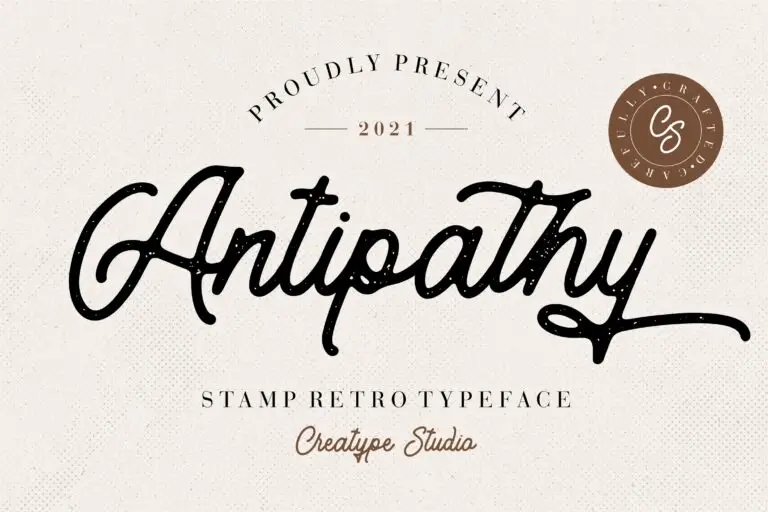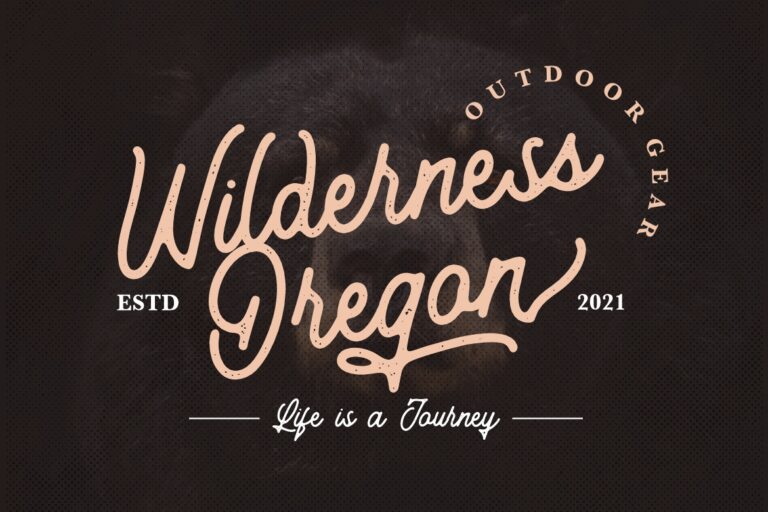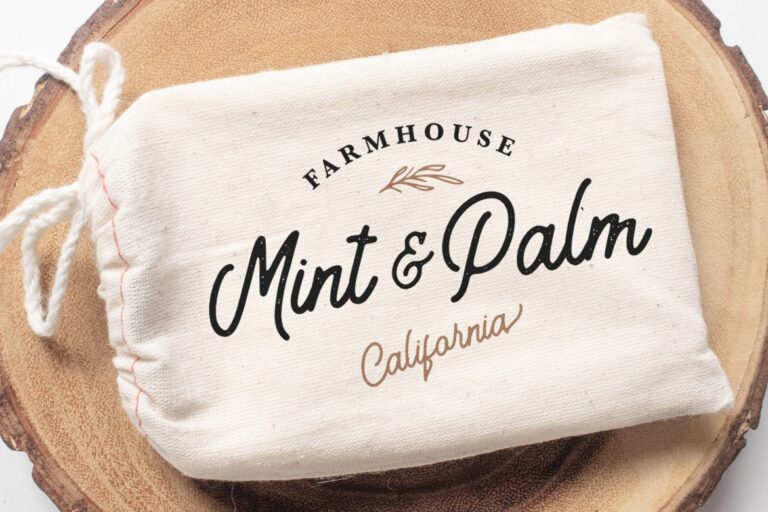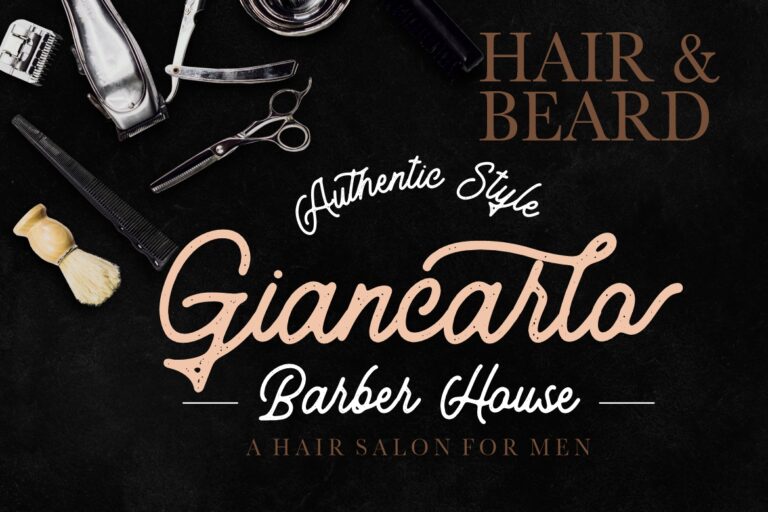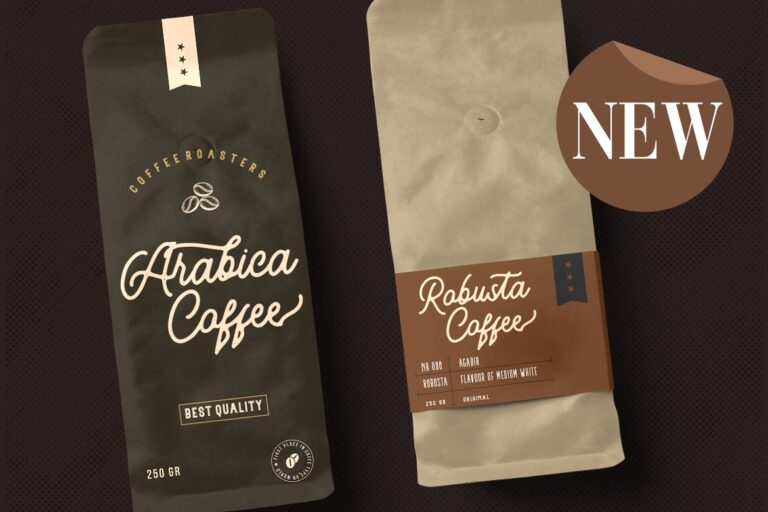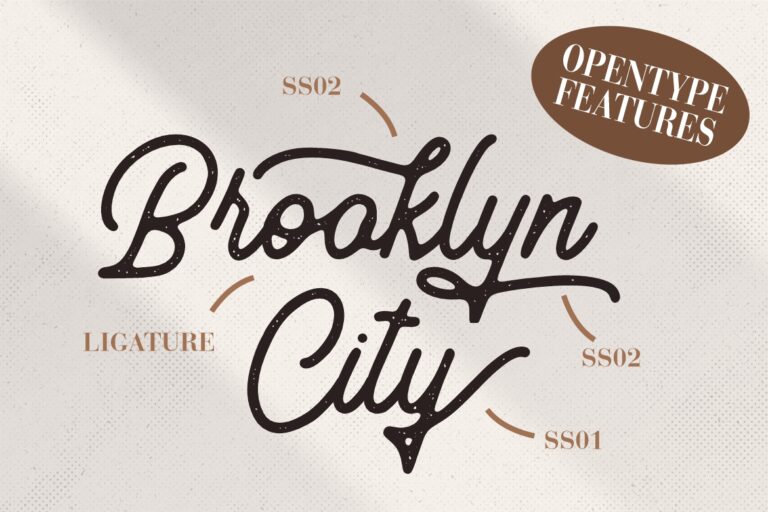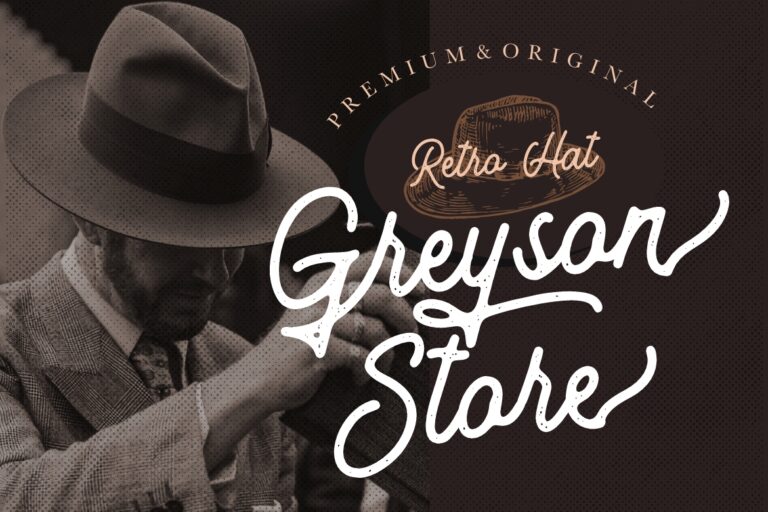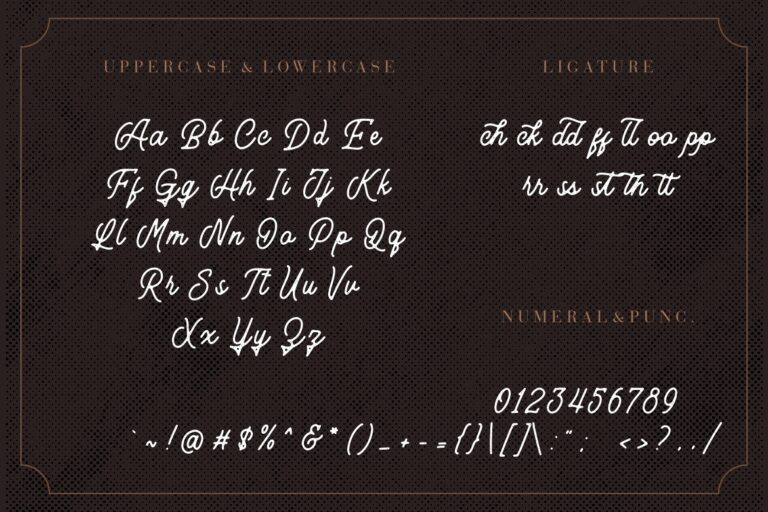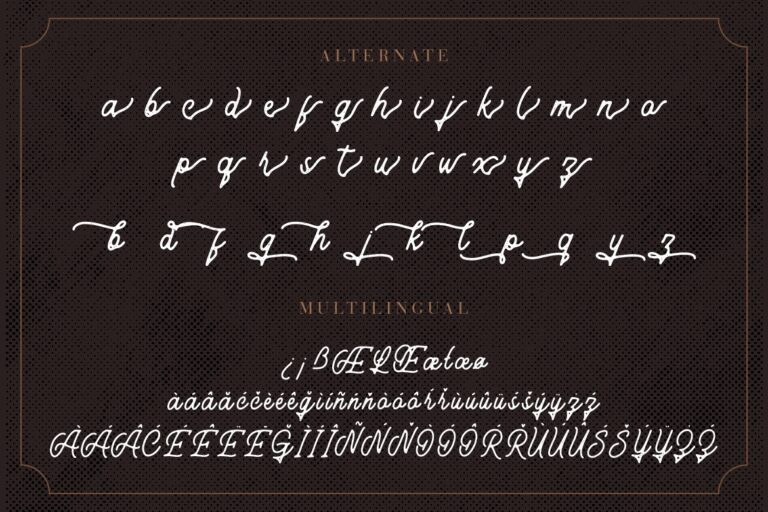
Antipathy Stamp Retro
Antipathy is retro stamp font which like using stamp effect with rough texture will perfect for grunge or vintage project.
Antipathy is perfect for branding projects, logo, wedding designs, social media posts, advertisements, product packaging, product designs, label, photography, watermark, invitation, stationery and any projects that need handwriting taste.
- Fonts include multilingual support for; Afrikaans, Albanian, Czech, Danish, Dutch, English, Estonian, Finnish, French, German, Hungarian, Italian, Latvian, Lithuanian, Norwegian, Polish, Portugese, Slovak, Slovenian, Spanisch, Swedish.